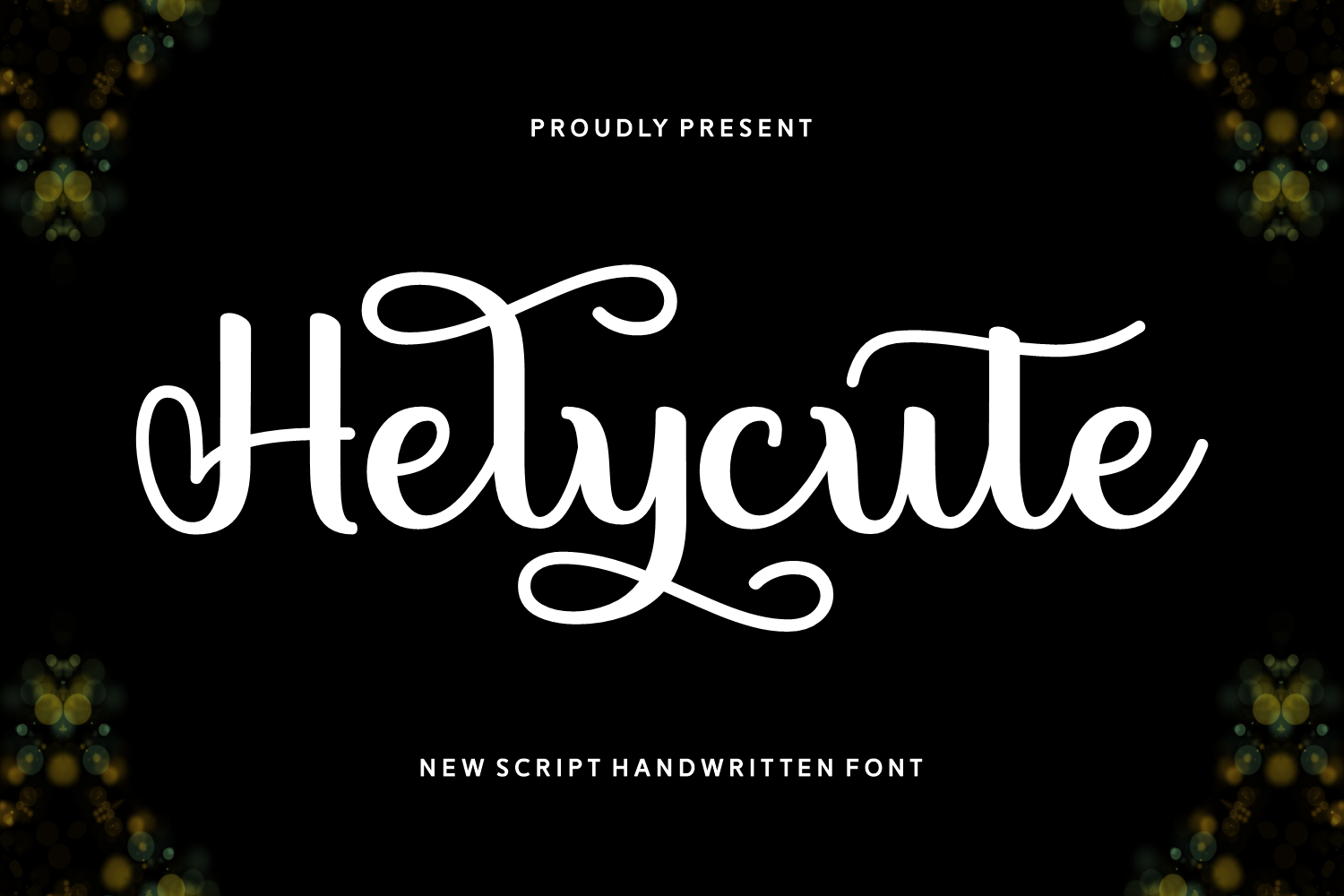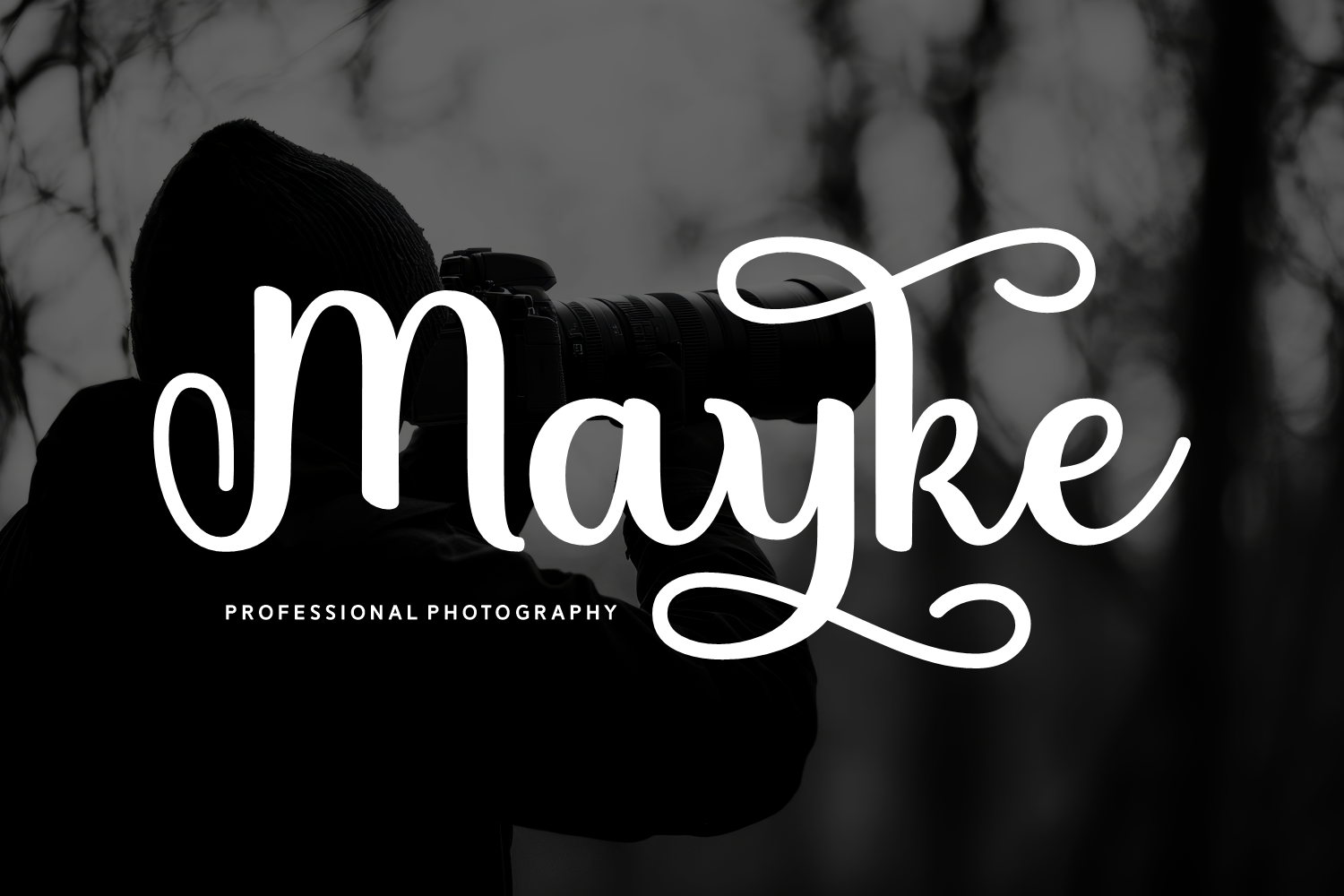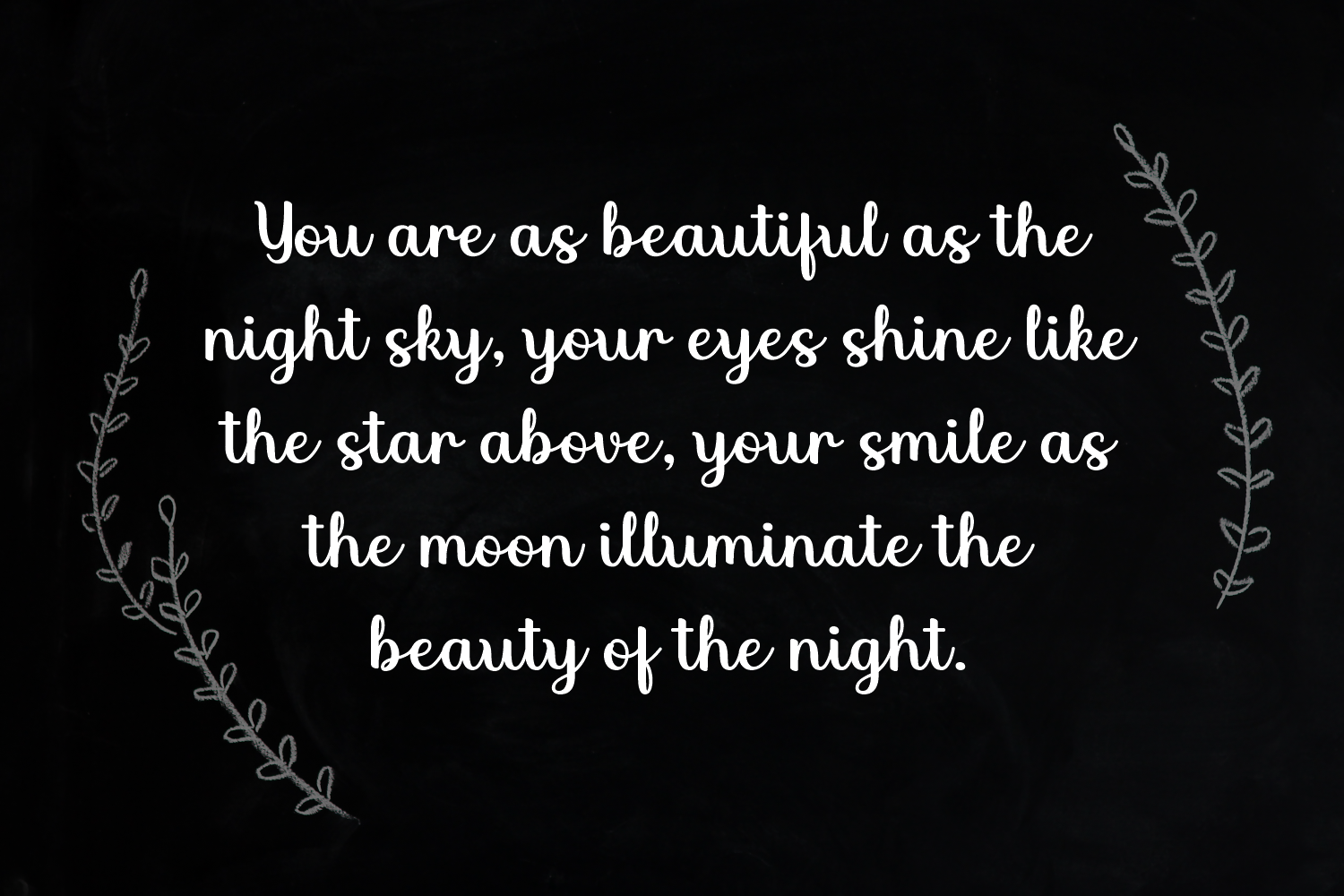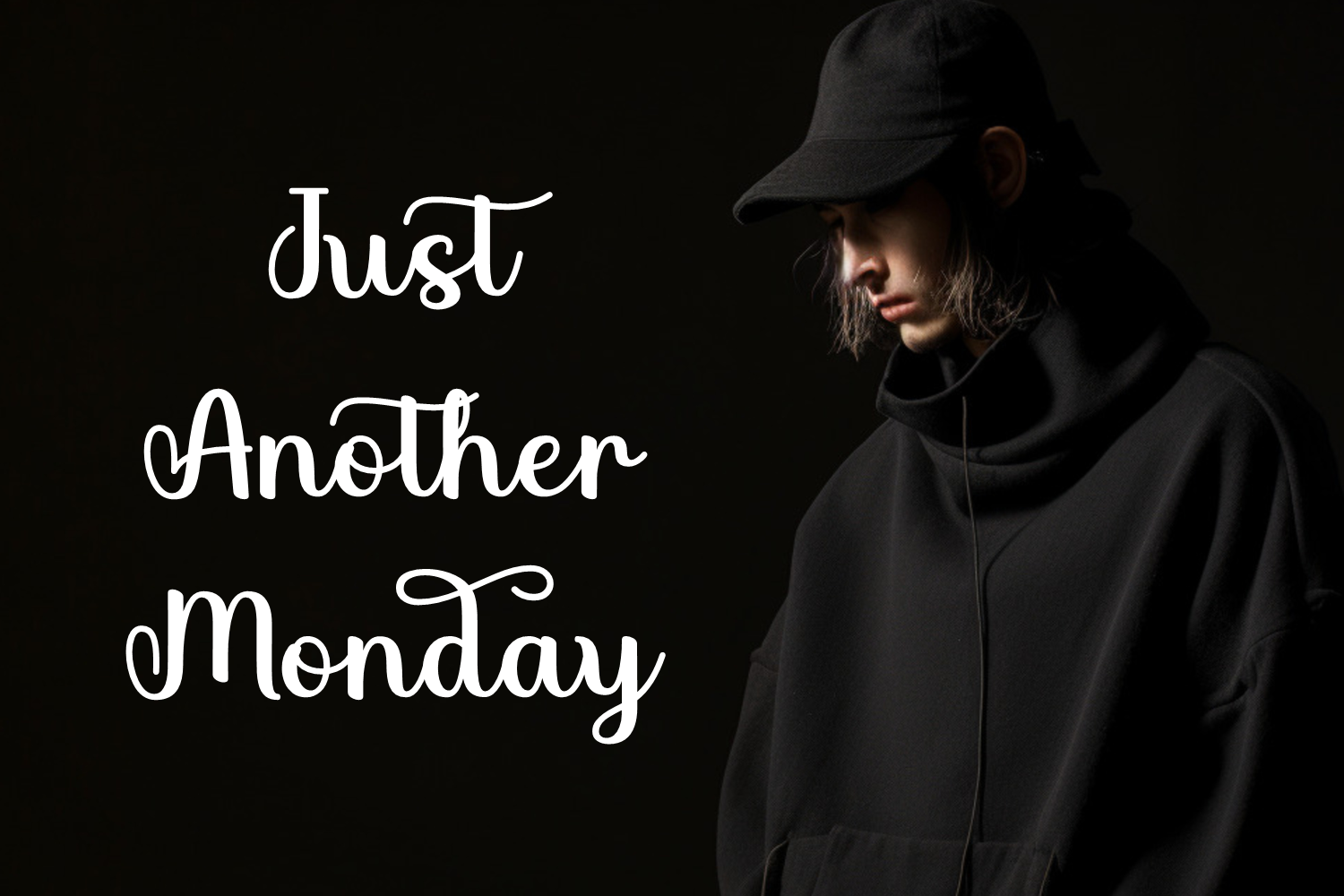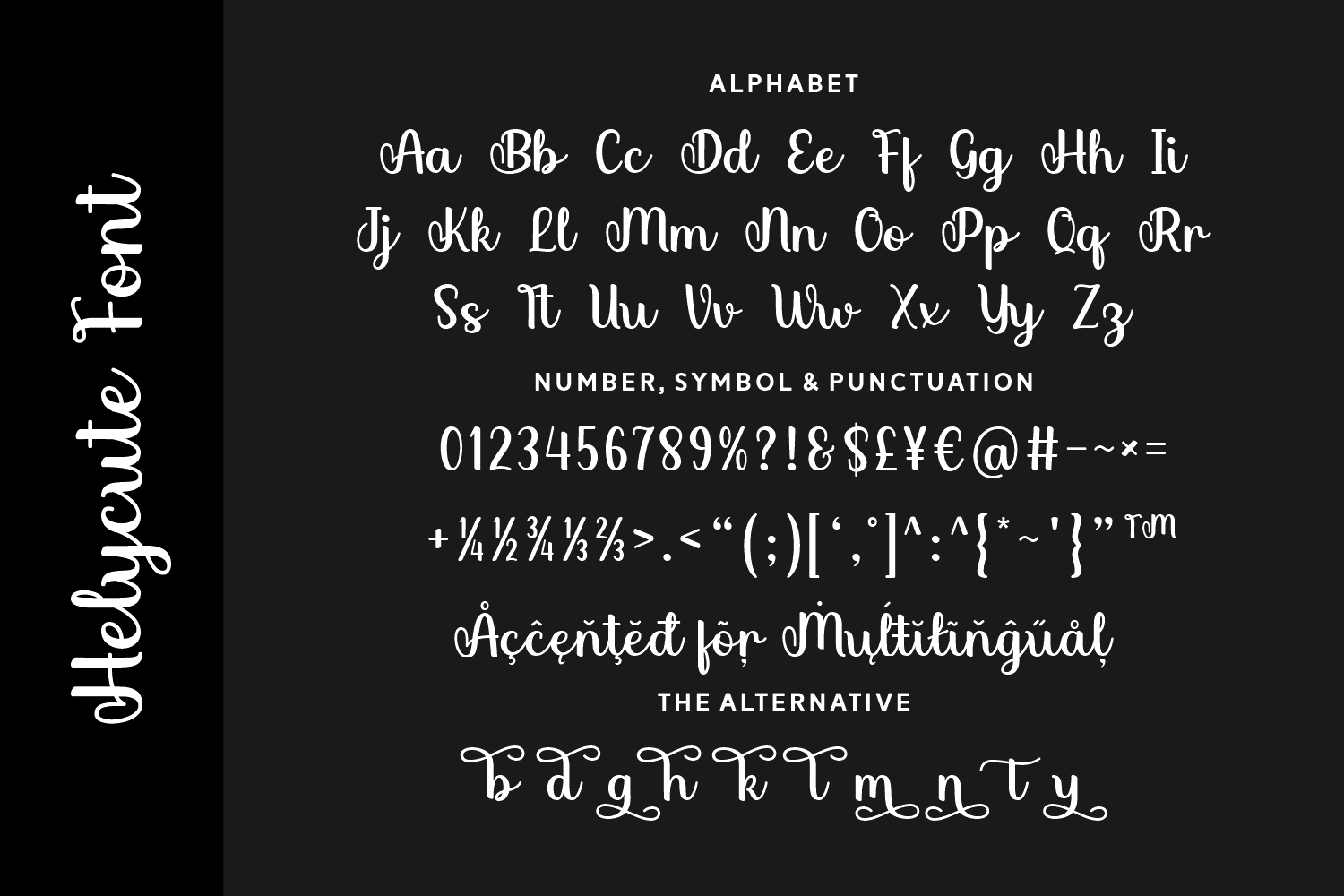
Helycute is a charming script handwritten font with graceful swashes and an irresistibly cute flair. Perfect for holiday cards, branding projects, packaging, or festive invitations, this font adds a cozy and cheerful vibe to any design it touches.